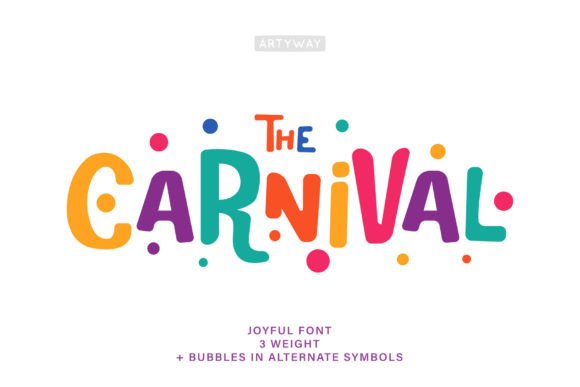
Carnival Font: Add a Touch of Fun and Excitement to Your Party or Celebration!
Are you looking for a font that can add a dash of fun and excitement to your party or celebration? Look no further than the “Carnival” font! This colorful and playful font is perfect for birthday invitations, carnival posters, and party headlines. With its rounded letters in a variety of bright hues, the “Carnival” font is sure to make your event stand out.
What Makes the Carnival Font So Special?
The “Carnival” font is more than just a font – it’s an experience. Its unique and playful design makes it perfect for any celebration or party. The font features rounded letters in a range of bright and bold colors, giving it a fun and festive feel. Whether you’re designing invitations, posters, or headlines, the “Carnival” font is sure to add a touch of excitement and energy to your event.
The “Carnival” font is a must-have for designers and crafters who want to add a personal touch to their projects. With its PUA encoding, you can access all glyphs and swashes effortlessly, making it easy to customize your designs. Whether you’re creating party invitations, birthday cards, or carnival posters, the “Carnival” font is the perfect choice.
Key Features of the Carnival Font
- Colorful and Playful Design: The “Carnival” font features rounded letters in a range of bright and bold colors, making it perfect for any celebration or party.
- PUA Encoded: The font is PUA encoded, making it easy to access all glyphs and swashes.
- Perfect for Party Invitations: The “Carnival” font is perfect for birthday invitations, carnival posters, and party headlines.
- Easy to Customize: With its PUA encoding, you can easily customize your designs and add a personal touch.
Tips and Tricks for Using the Carnival Font
Here are a few tips and tricks for using the “Carnival” font:
- Experiment with Colors: The “Carnival” font comes in a range of bright and bold colors. Experiment with different color combinations to create a unique and eye-catching design.
- Add Swashes and Glyphs: With its PUA encoding, you can easily add swashes and glyphs to your design. Use these to add a personal touch and create a more customized look.
- Mix and Match Fonts: The “Carnival” font is perfect for pairing with other fonts. Experiment with different font combinations to create a unique and eye-catching design.
Whether you’re a designer, crafter, or simply someone who loves to party, the “Carnival” font is sure to bring a smile to your face. So go ahead, get creative, and add a touch of fun and excitement to your next party or celebration with the “Carnival” font!